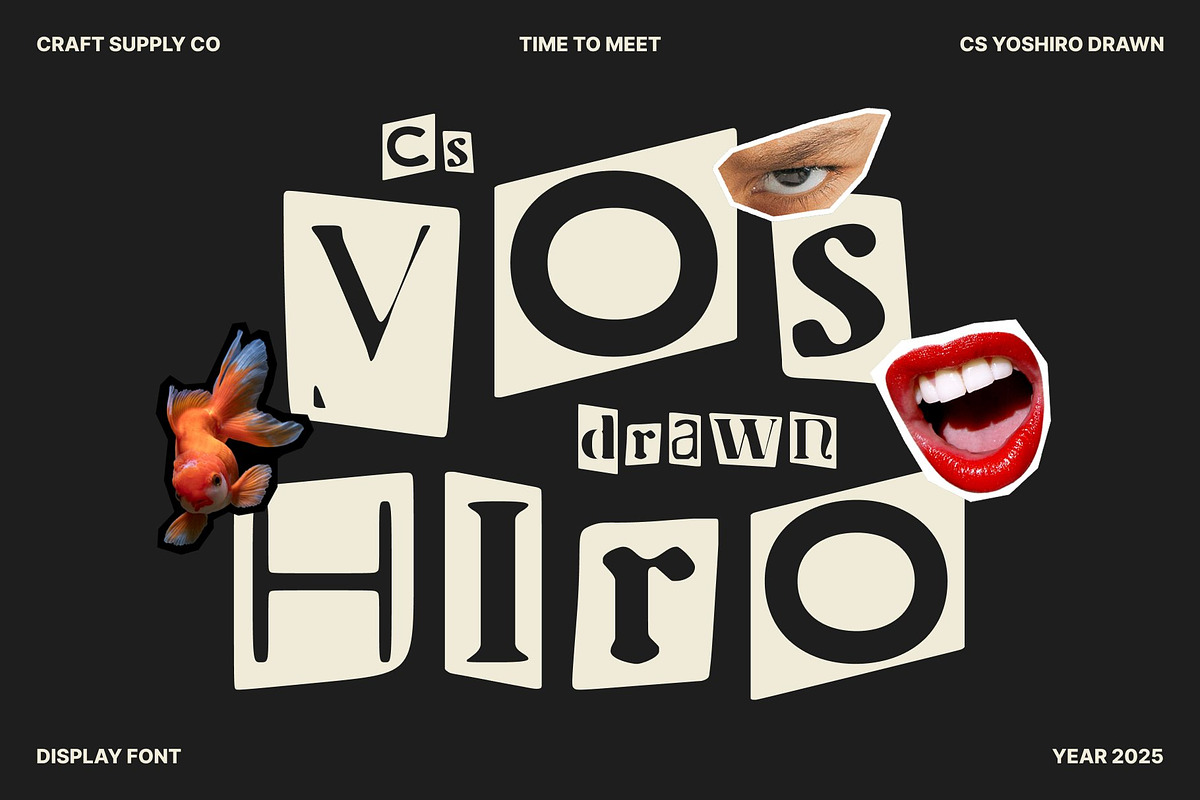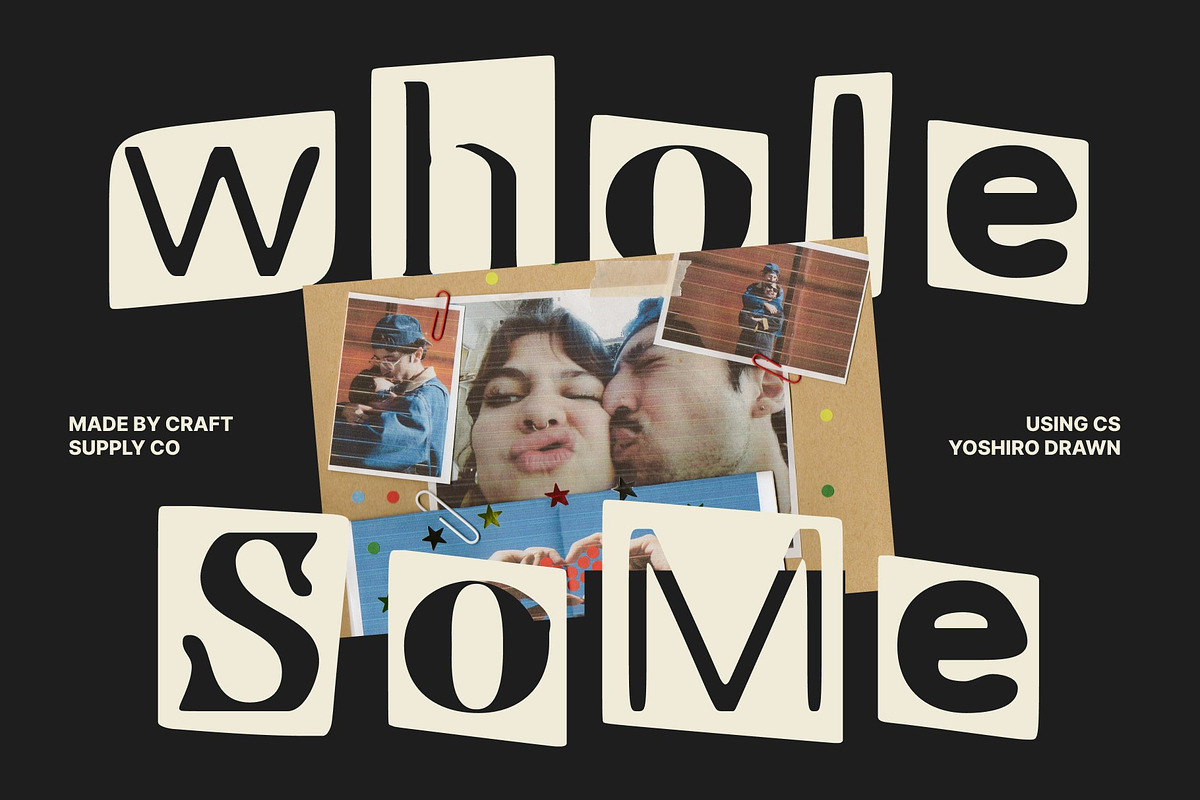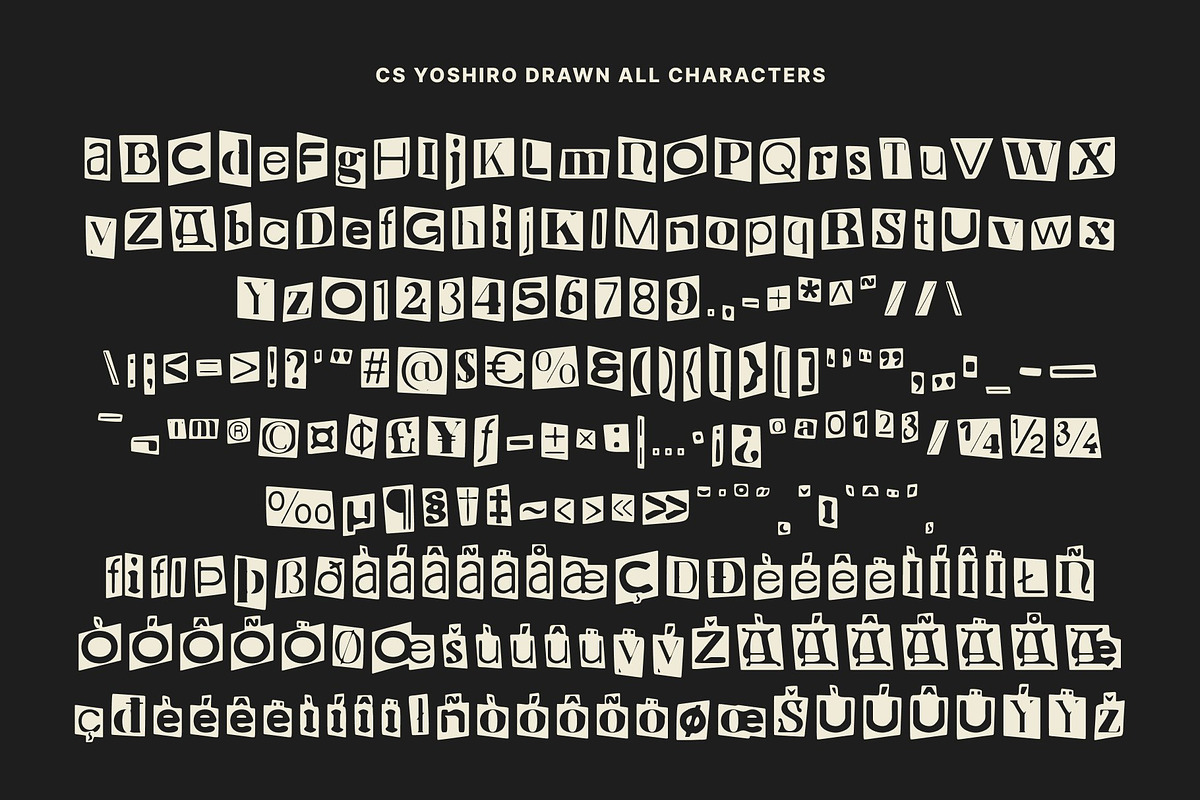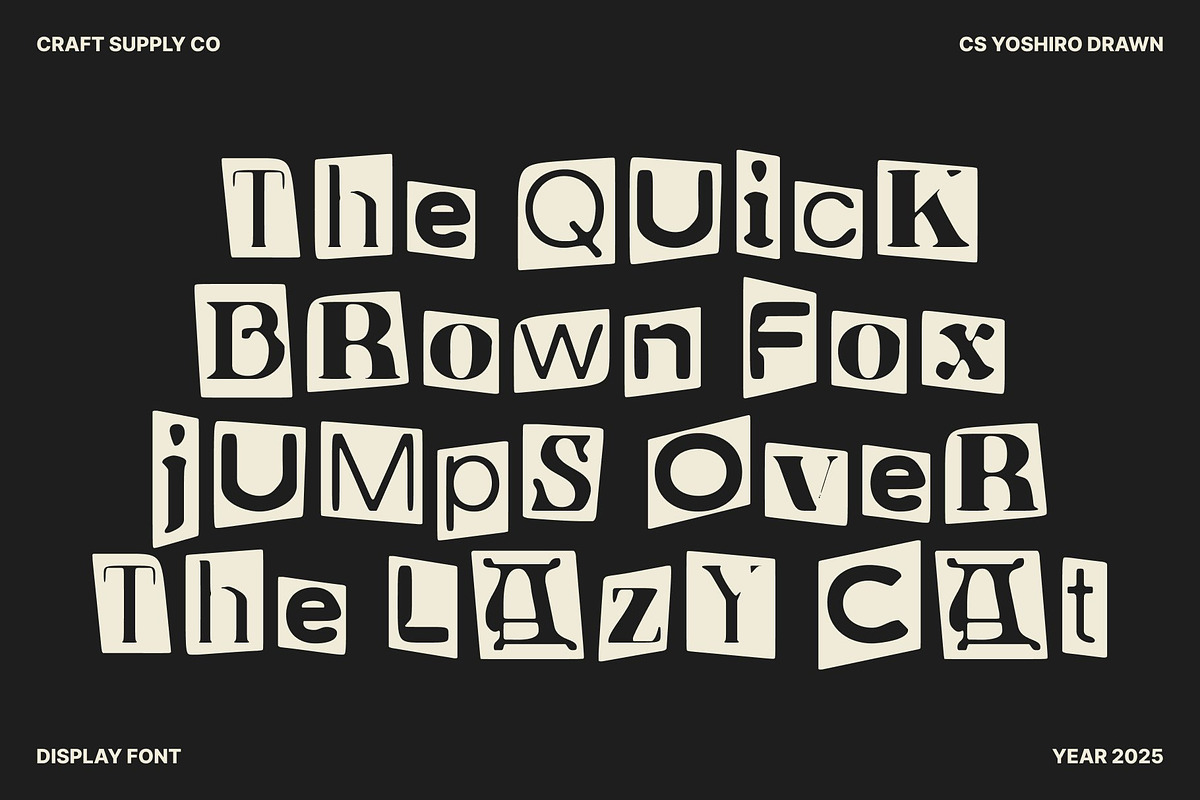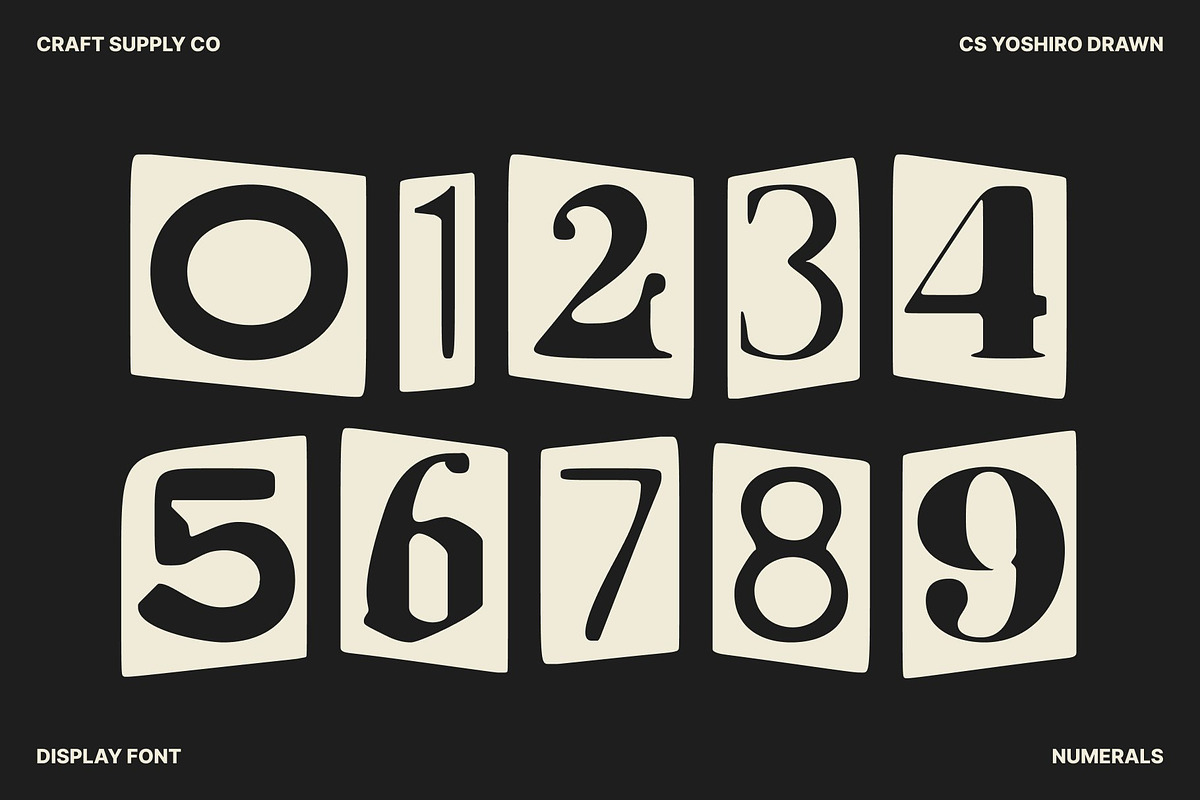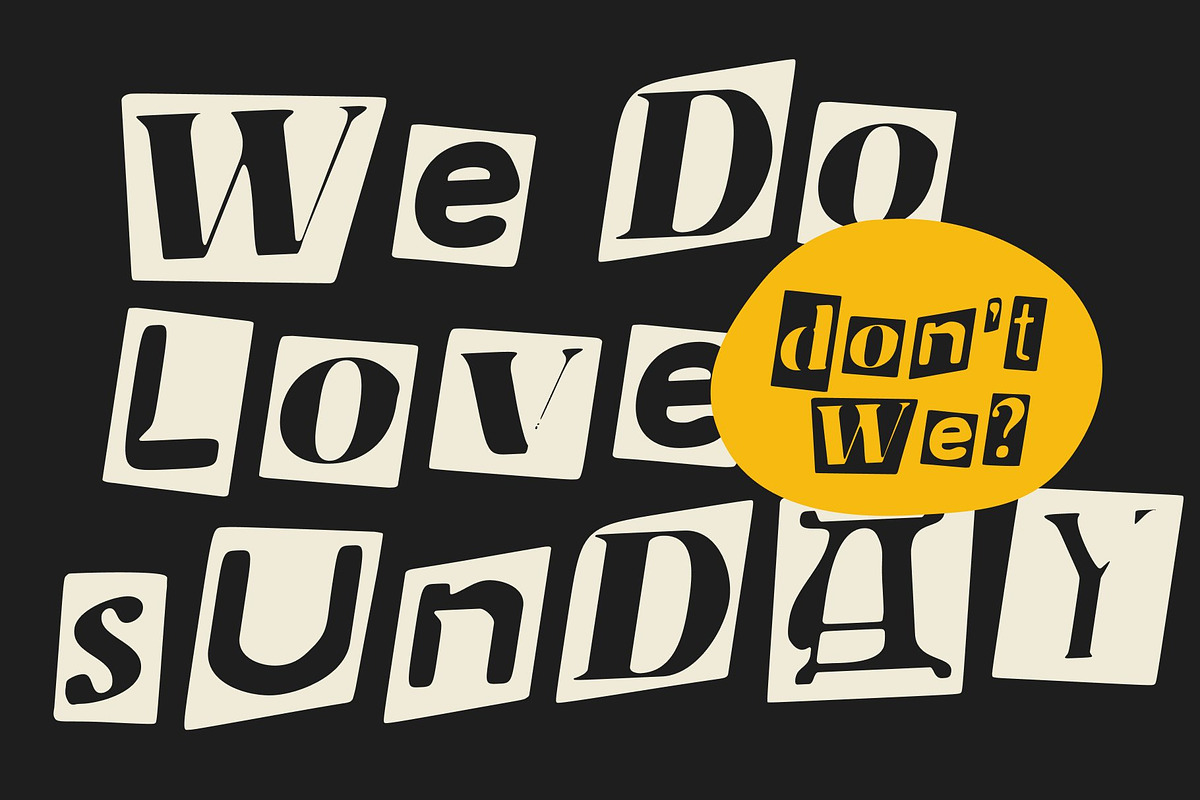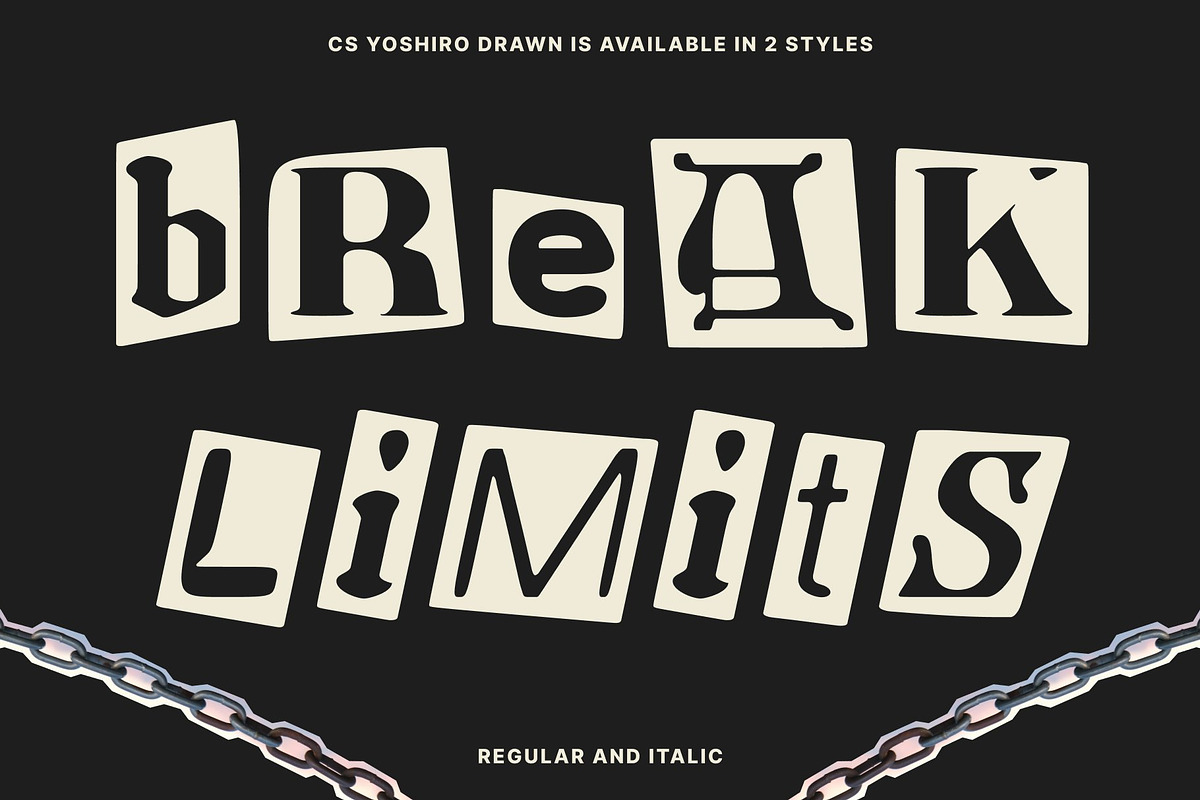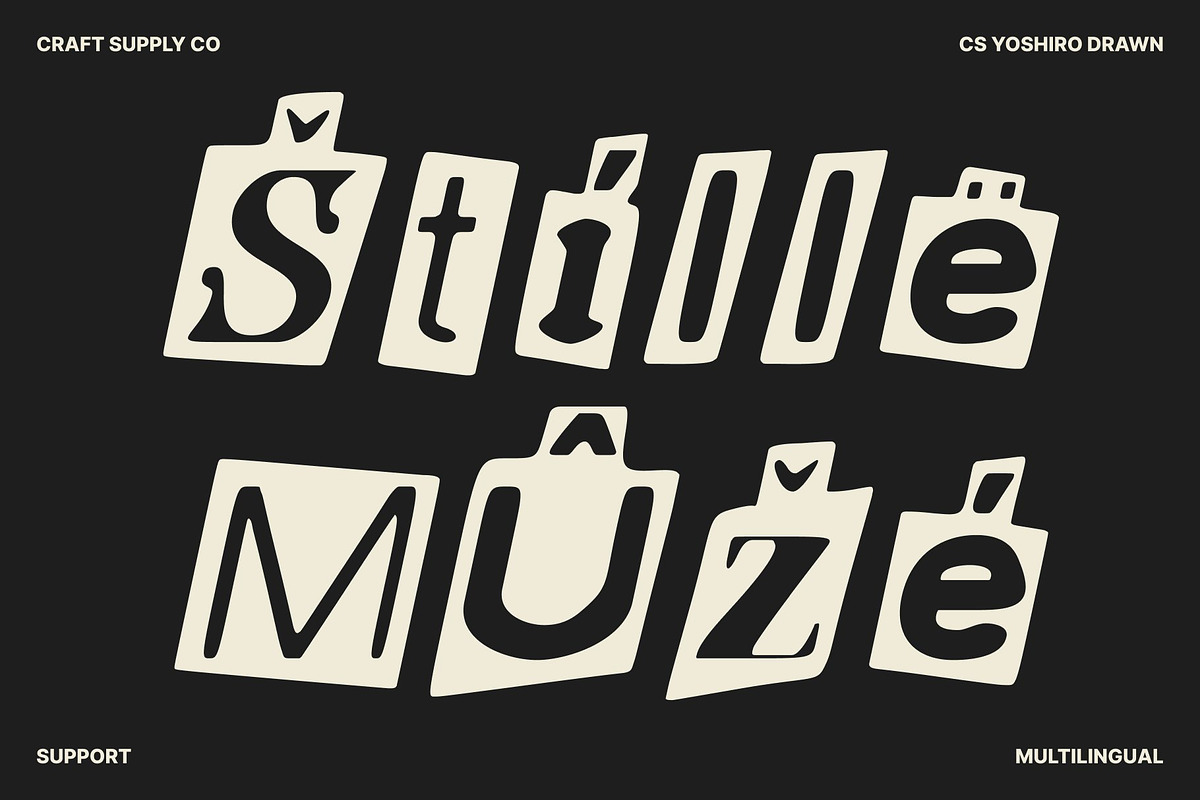
CS Yoshiro Drawn
CS Yoshiro Drawn – Chaotic, Rebellious, and Striking Ransom-Style Display
A Bold Collision of Chaos and Creativity This is a rebellious ransom-style display font that thrives on disorder, disruption, and bold visual impact. Built from cut-and-paste shapes and intentionally irregular forms, this font embraces chaotic energy to create a loud, unapologetic presence.
Hand-Drawn Imperfection for a Messy, Unique Look The drawn effect enhances its chaotic personality by adding organic, messy contours that feel spontaneous and unpolished. These imperfect strokes mimic handmade ransom notes and DIY street graphics, creating a look that is gritty, expressive, and undeniably unique. Instead of clean precision, this font delivers textured unpredictability perfect for projects that want to break the rules.
Perfect for Edgy Posters, Branding, and Album Covers Designed for bold storytelling, this font shines in high-impact visuals like posters, edgy branding, album artwork, street-style campaigns, and alternative media. Its dramatic letterforms inject attitude and tension, making it ideal for music, youth culture, experimental design, and disruptive marketing concepts.
A Distinctive Typeface Built for the Bold This font isn’t shy it demands attention. Its unpredictable shapes and collage-inspired construction make it a powerful display typeface for daring creatives. Use it to craft visuals that feel rebellious, raw, and unapologetically expressive. With its messy hand-drawn effect and striking ransom aesthetic, this font redefines design with fearless originality.